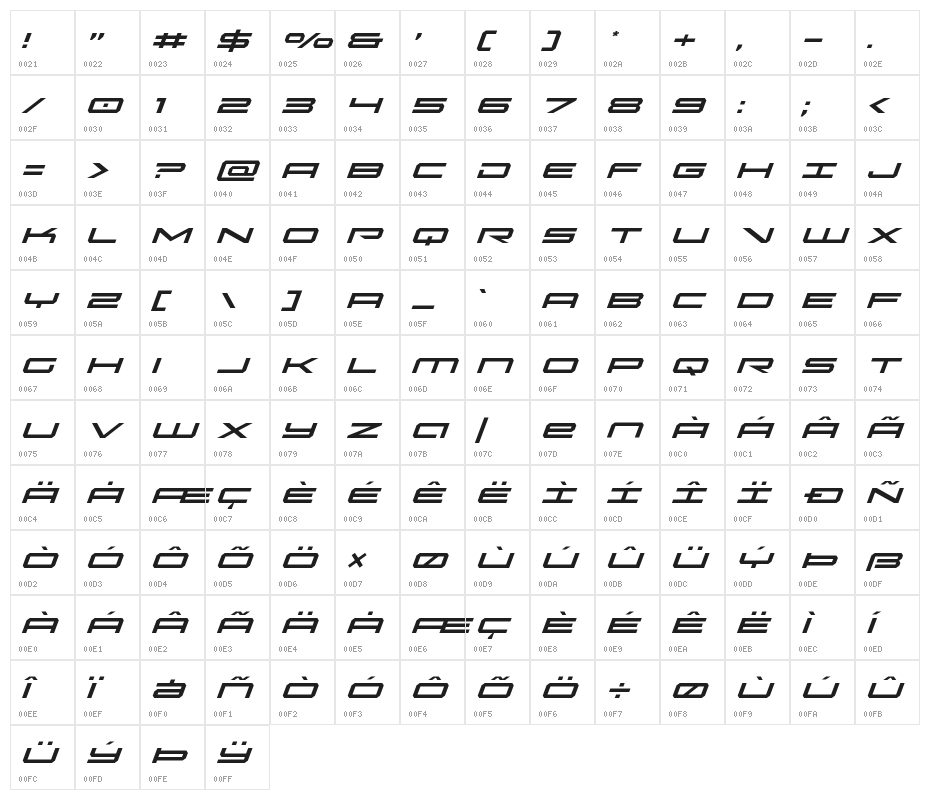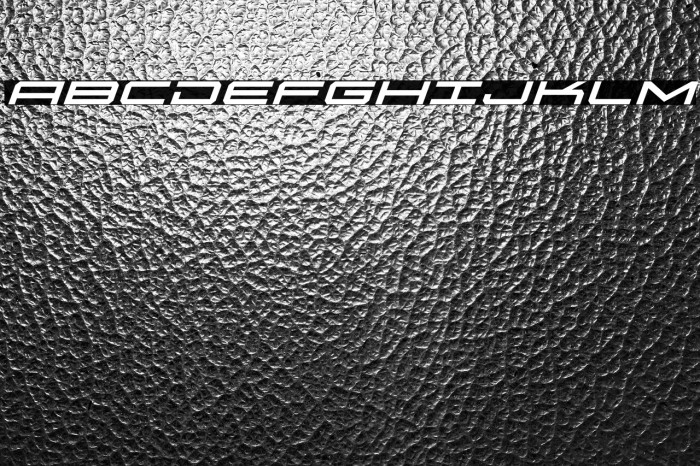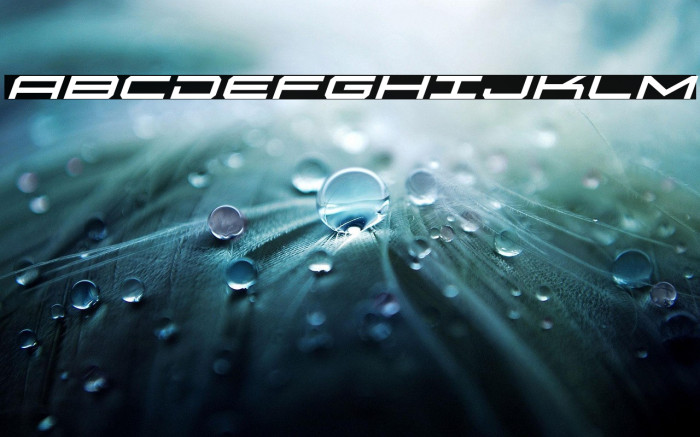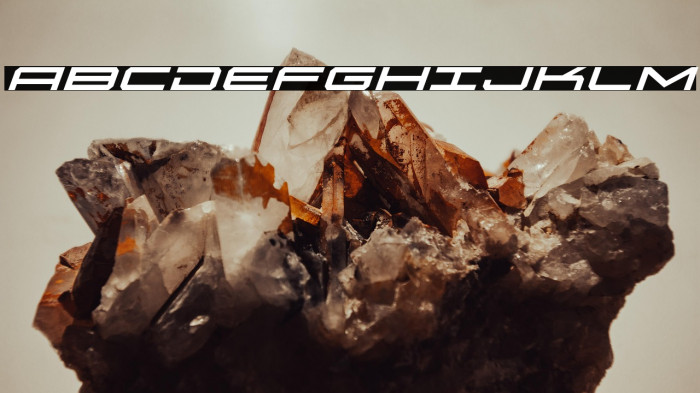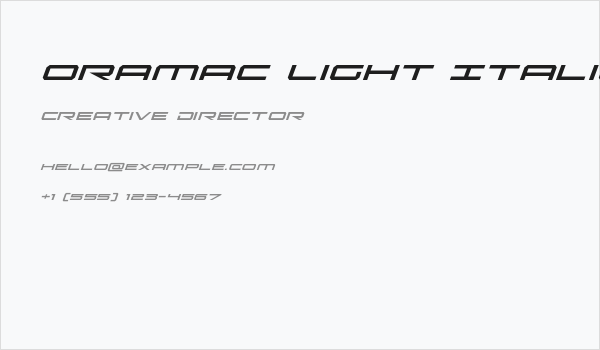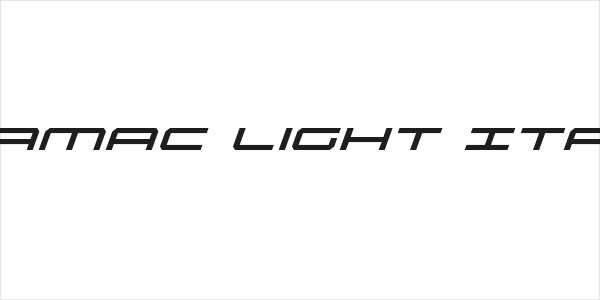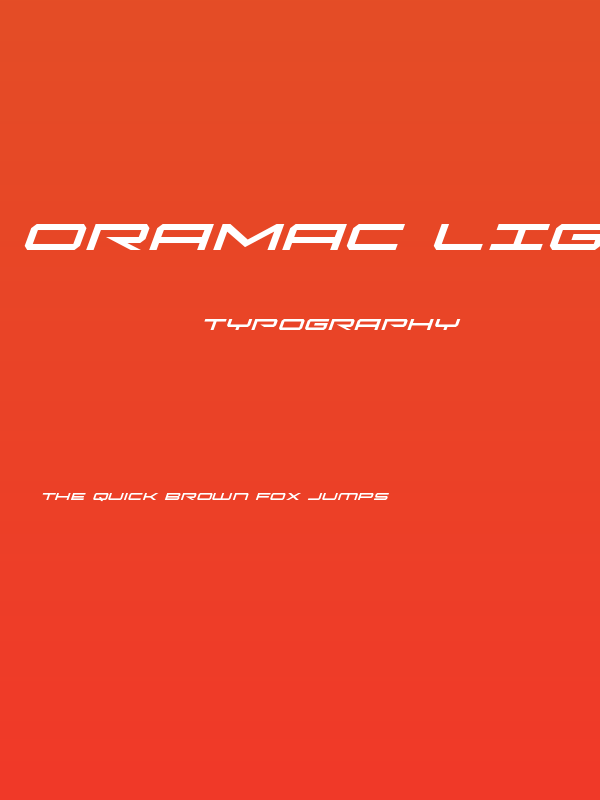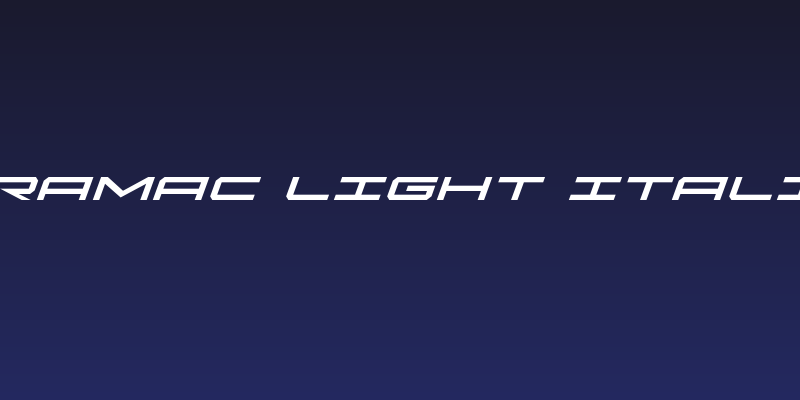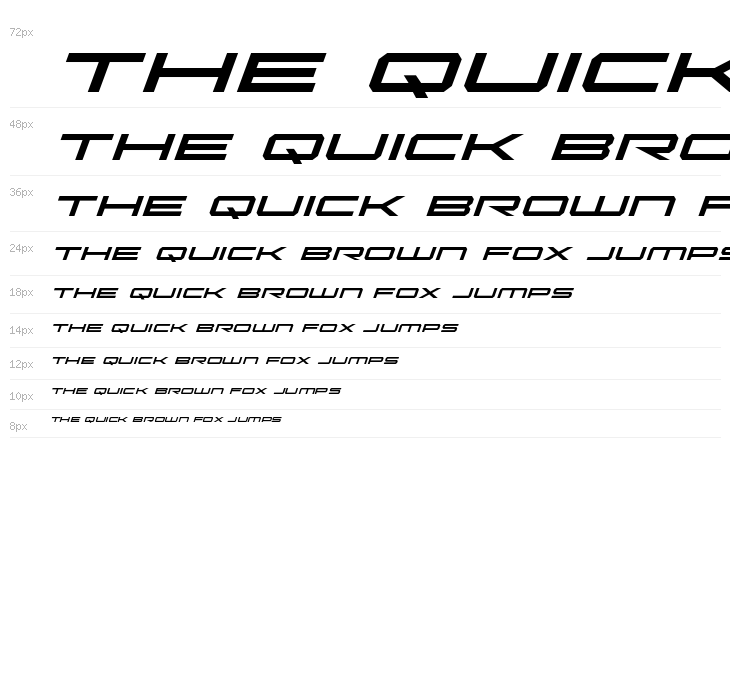
Oramac Light Italic Font
Oramac Light Italic Description
This font features a sleek, modern design with a futuristic flair. The characters are slightly italicized, giving a sense of motion and dynamism. The strokes are uniform in thickness, providing a clean and consistent appearance. The angular edges and geometric shapes contribute to its contemporary style, making it ideal for projects that require a cutting-edge look. The spacing between characters is moderately tight, enhancing the compact and streamlined aesthetic. This font is well-suited for technology-related themes, automotive branding, or any design that aims to convey speed and innovation.
| Proposed Projects | Ideal for technology branding, automotive designs, futuristic themes, and innovative product packaging. |